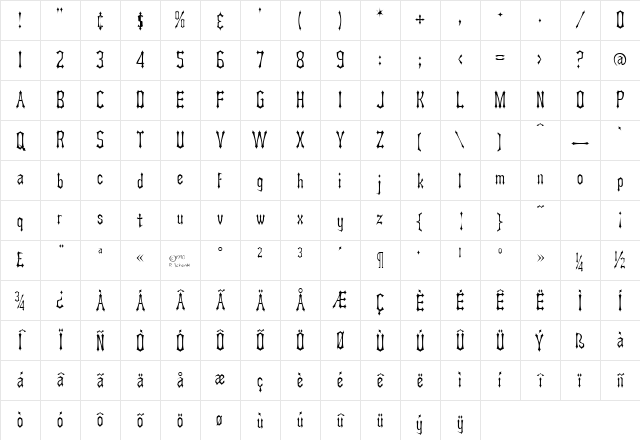
Asterx Regular
Design Context for Asterx
Asterx is a composed and adaptable typeface that performs quietly and consistently across a wide range of design contexts.